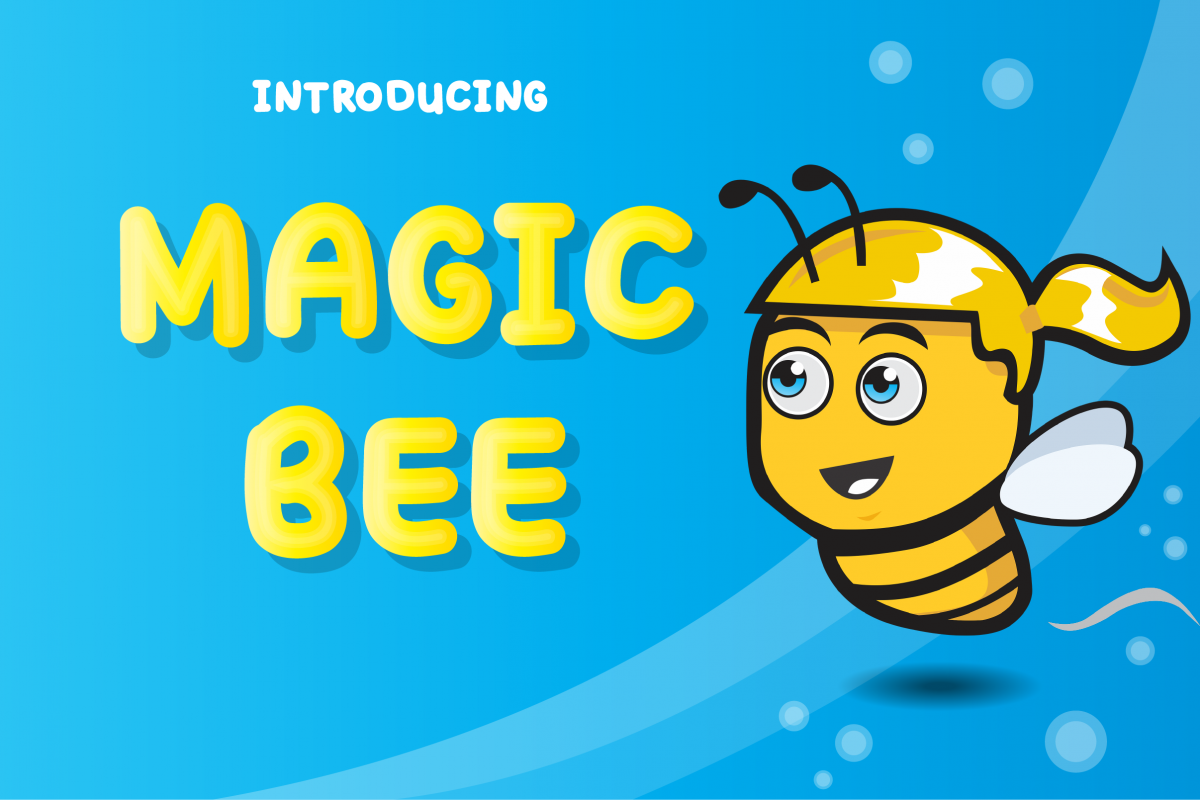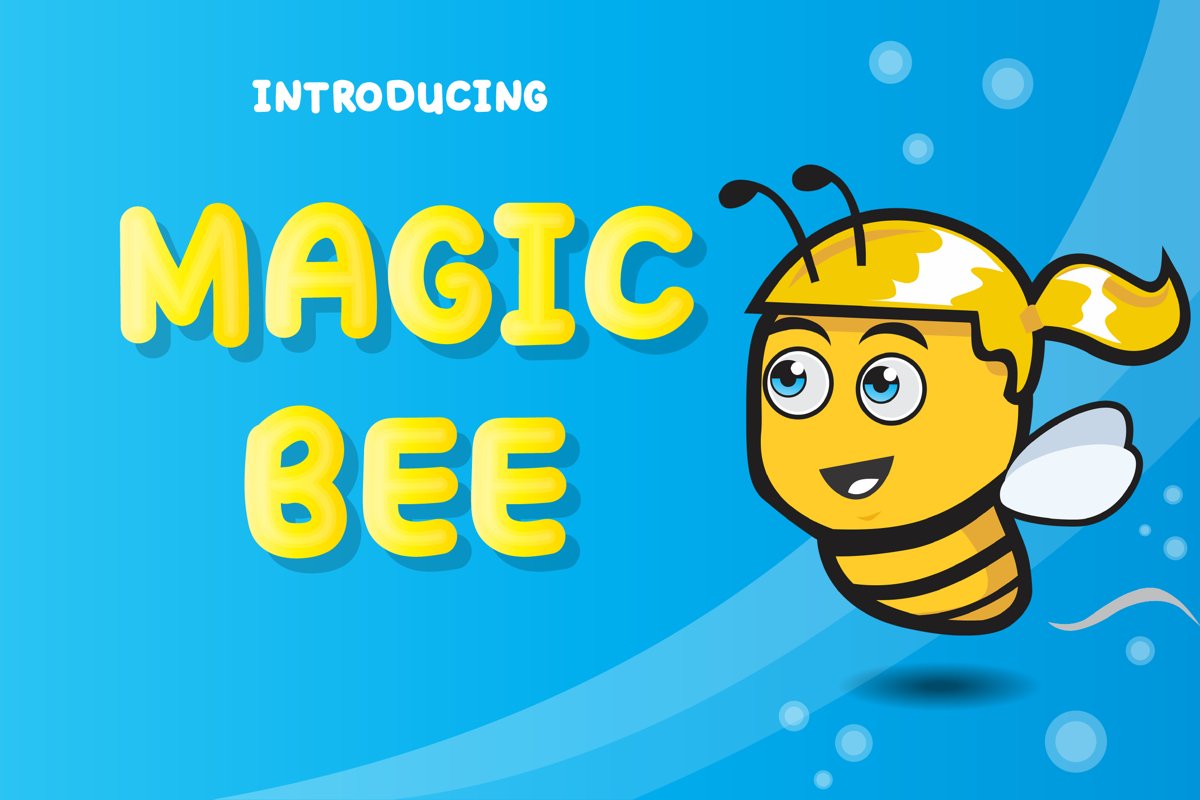
Magic Bee Display Font
MAGIC BEE
Magic Bee is a sweet and simple hand-drawn font. His brave character adds a lot of personality to any project. It is suitable for logos, for items to purchase with unlimited sales, and can be changed into web fonts!